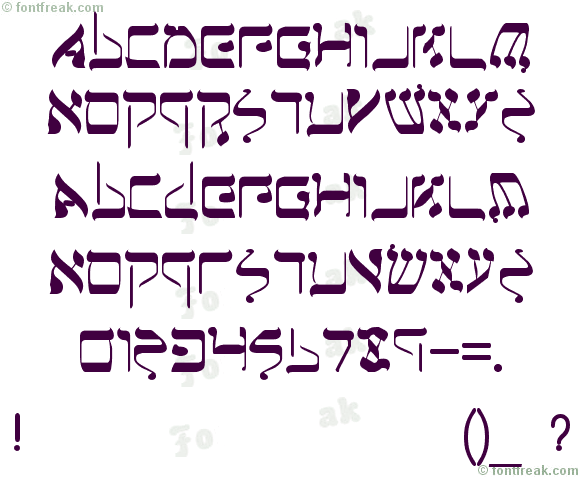
Jerusalem
The Jerusalem font, created by Iconian Fonts in 1999, is a unique display typeface that captures attention with its distinctive visual style. This decorative font features a combination of bold, thick strokes and intricate details, creating an eye-catching appearance that stands out in various applications. The design exhibits a playful contrast between heavy and light elements, which adds depth and character to the typography. The spacing is thoughtfully arranged to maintain readability while emphasizing its artistic flair, making it suitable for a wide range of projects.
The Jerusalem font is perfect for several specific use cases. It can be effectively used in eye-catching wedding invitations, where its decorative elements can add a whimsical touch to the overall design. Additionally, it works well for movie posters, where the boldness of the font can convey excitement and drama. Restaurant menus can benefit from the font’s unique style, giving them a memorable and inviting look. Furthermore, it is an excellent choice for flyers and promotional materials, where grabbing the audience's attention is key.
What sets the Jerusalem font apart is its blend of artistry and functionality. The unique decorative elements and bold strokes create a memorable impression, allowing it to stand out in a crowded design landscape. For those seeking a distinctive touch in their typography, the Jerusalem font free download offers an excellent opportunity to enhance their creative endeavors while making a bold statement.